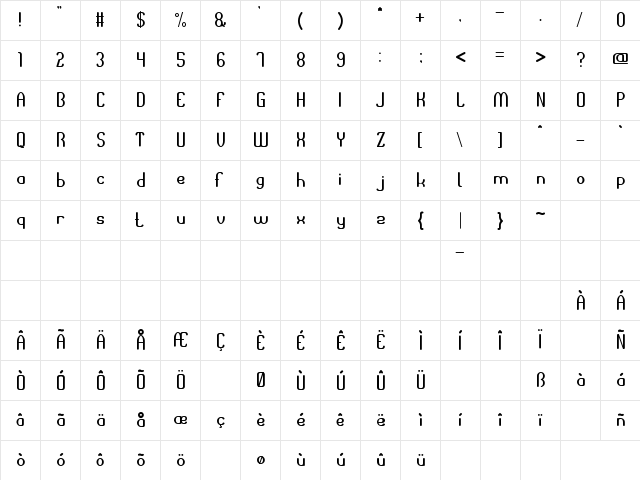
Space of Time Regular Free Font
Space of Time Regular
Complete Space of Time Regular glyph index. Displaying only characters natively supported by Space of Time Regular font.
Design Context for Space of Time
Space of Time is a composed and adaptable typeface that performs quietly and consistently across a wide range of design contexts.
Pro Tip: Use Space of Time in both headline and body roles to test its range before committing to a single application.